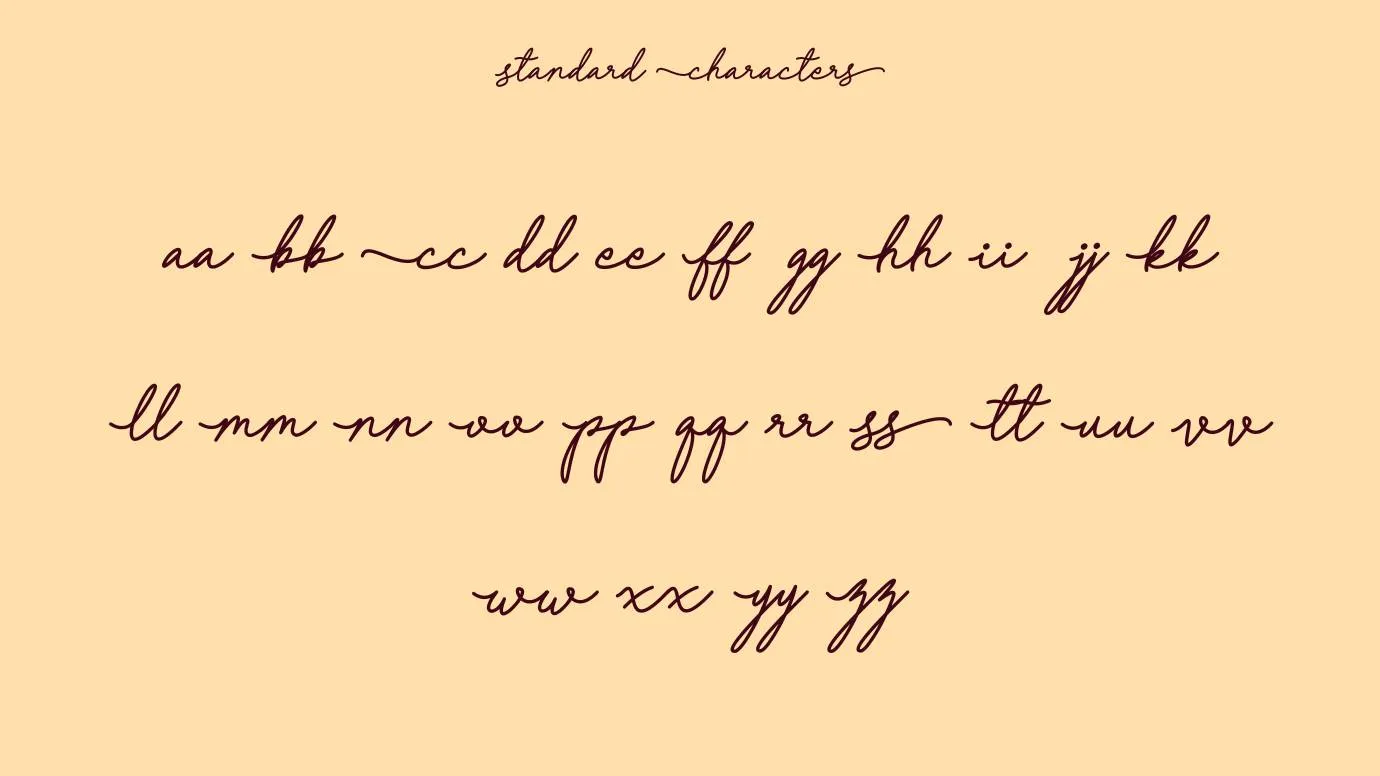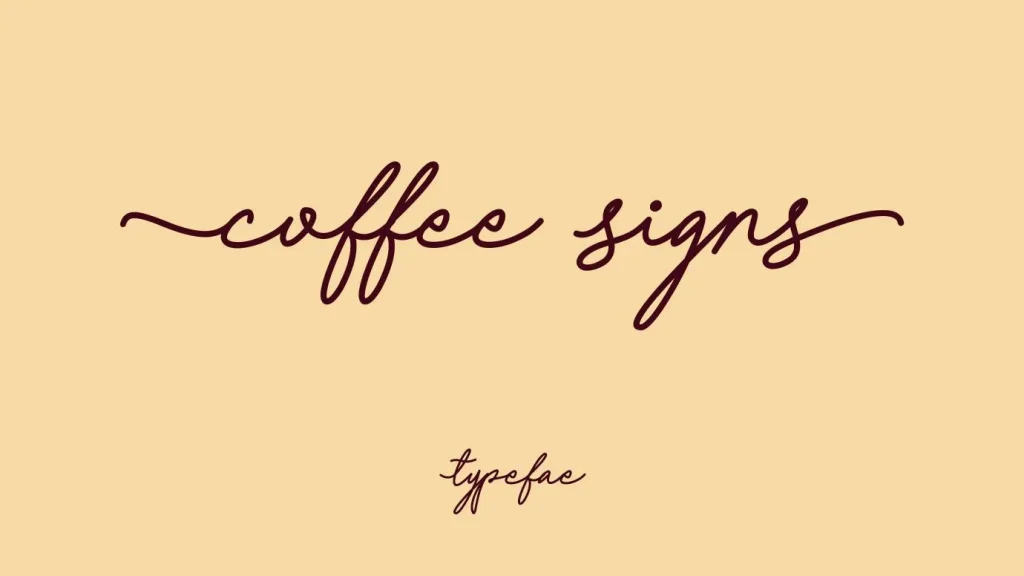
Coffee Signs Font is a Script style that has an excellent design and has so many various classic qualities that make it an elegant and perfect typeface.
The designs that require excellent readability and attractive design should use this. Users can create very proficient logos, titles, or branding designs. You’ll be able to make your task stand out by adding its unique characters. In this superb typeface, you can use both lowercase as well as uppercase letters.
Many official projects are best suited for this stunning font. Designers love this unique font. This is an elegant, flowing font with a delicate feel. It matches a wide range of designs due to its beautiful and well-designed characters.
There are beautiful glyphs, smooth lines, and stunning alternates in a font. It can help you to create unique ideas. It has several distinctive qualities that make it suited for a variety of uses.
Coffee Signs Font Preview
This highly readable typeface is utilized across a wide range of devices, and it is suitable for both visual and printable projects, like many other same typeface families. Numerous big and small projects, including webpages, articles, booklets, and many more, use this typeface. You can also easily combine this font with toy story font.
For textual data, advertising, and visual design, it is ideal. Use the typeface to give any text a lovely, luxurious, and beautiful feel. It has a wide range of uses. Because of its lightness, it can be used in a number of frameworks, which makes it perfect for generating modern and stylish visuals.
Why is the Coffee Signs Font So Famous?
You can use this style for designing posters, logos, t-shirt designs, labels, flags, magazines, and other vintage design projects. There is no doubt that this is a stunning font. An elegant and highly detailed font, this is a great choice for any project.
The design can be used to create interesting book covers, shop names, logos, and websites. As well as branding projects, houseware designs, packaging, or even simply as an attractive text overlay on any background image.
The typeface is appropriate for all types of projects that demand unique classy designs. This is a great texture style with an eye-catching design it is one of the best and most attractive styles.
What type of font is Coffee Signs Font?
Coffee Signs Font is a Script style that has an excellent design and has so many various classic qualities that make it an elegant and perfect typeface.